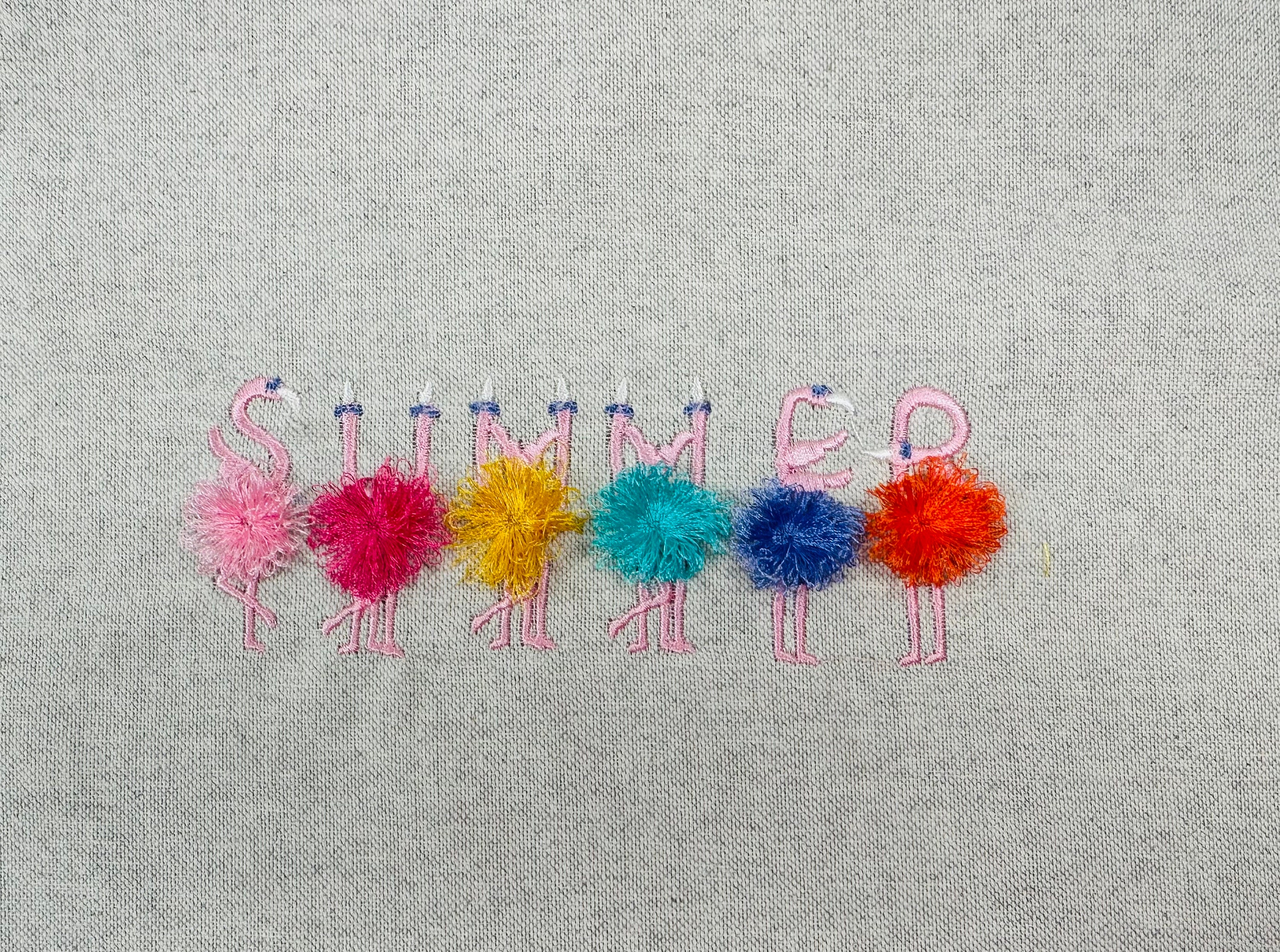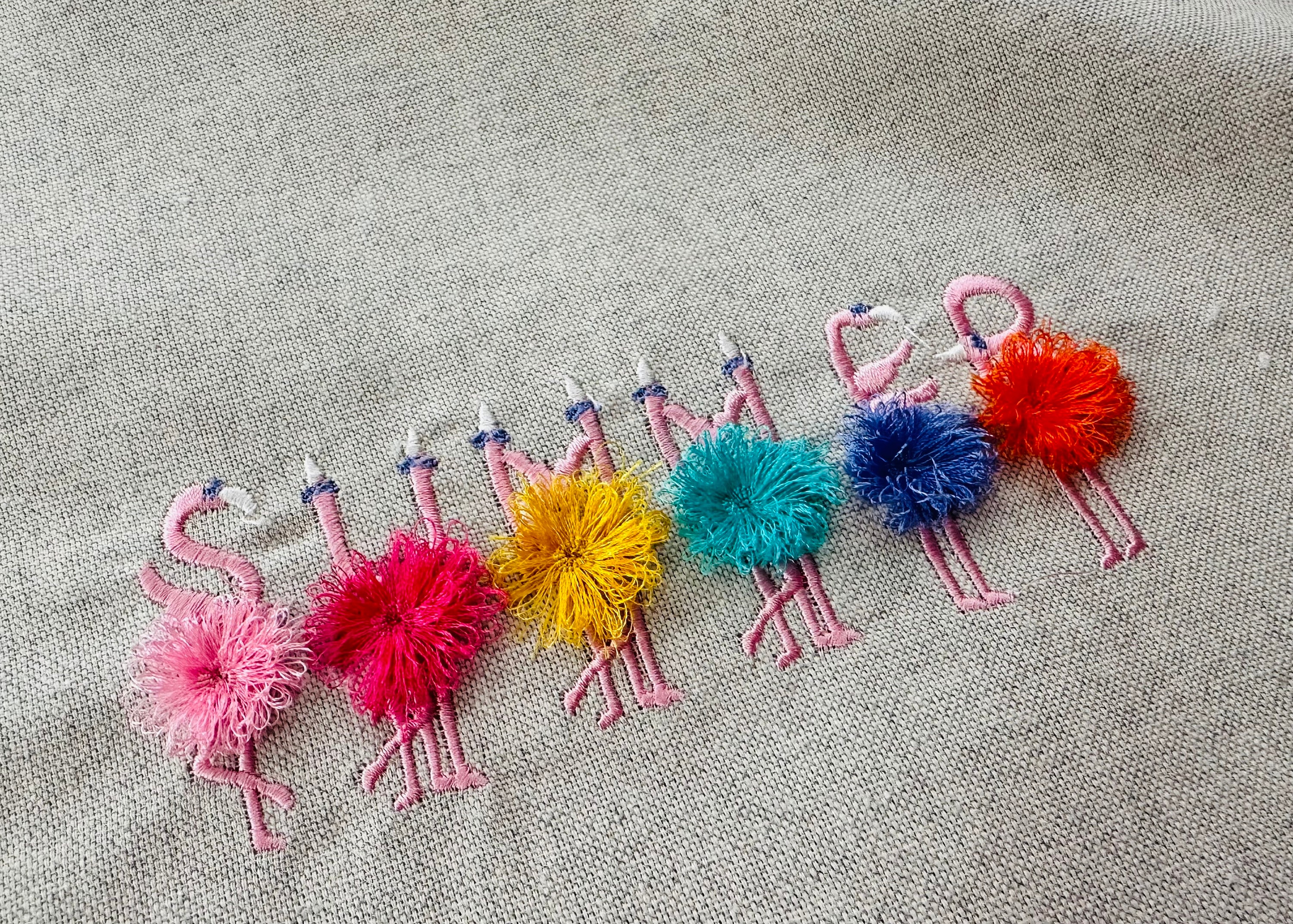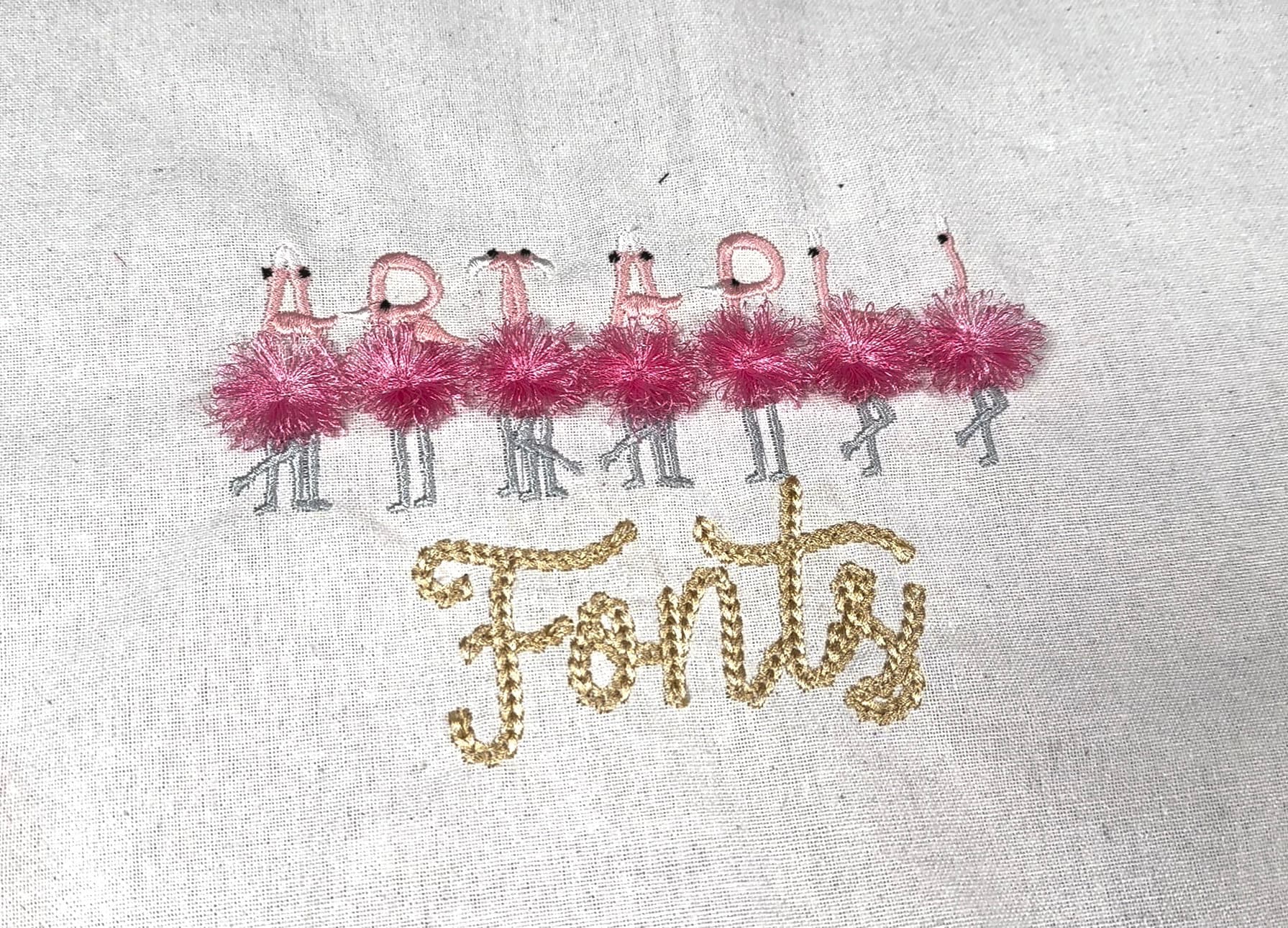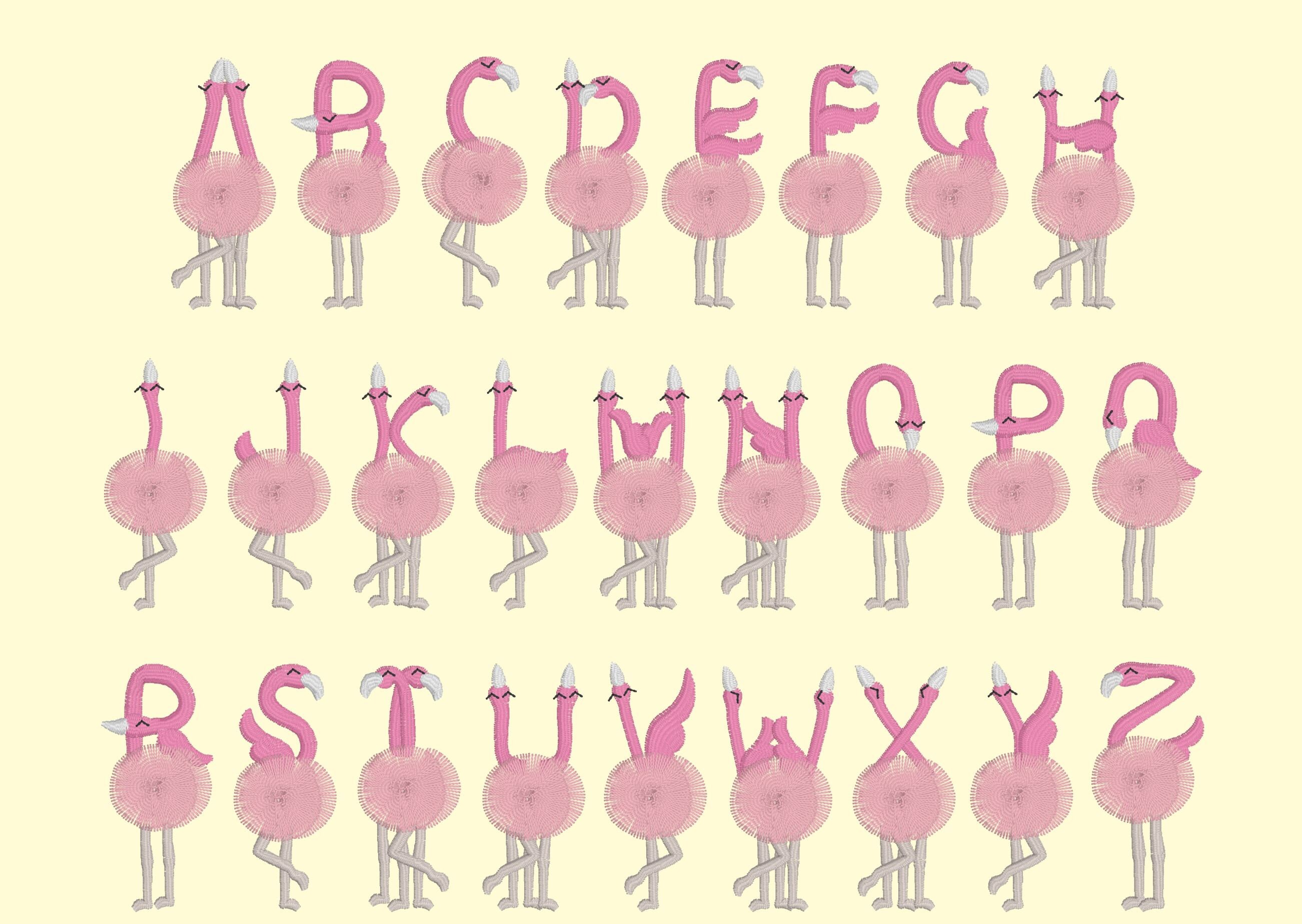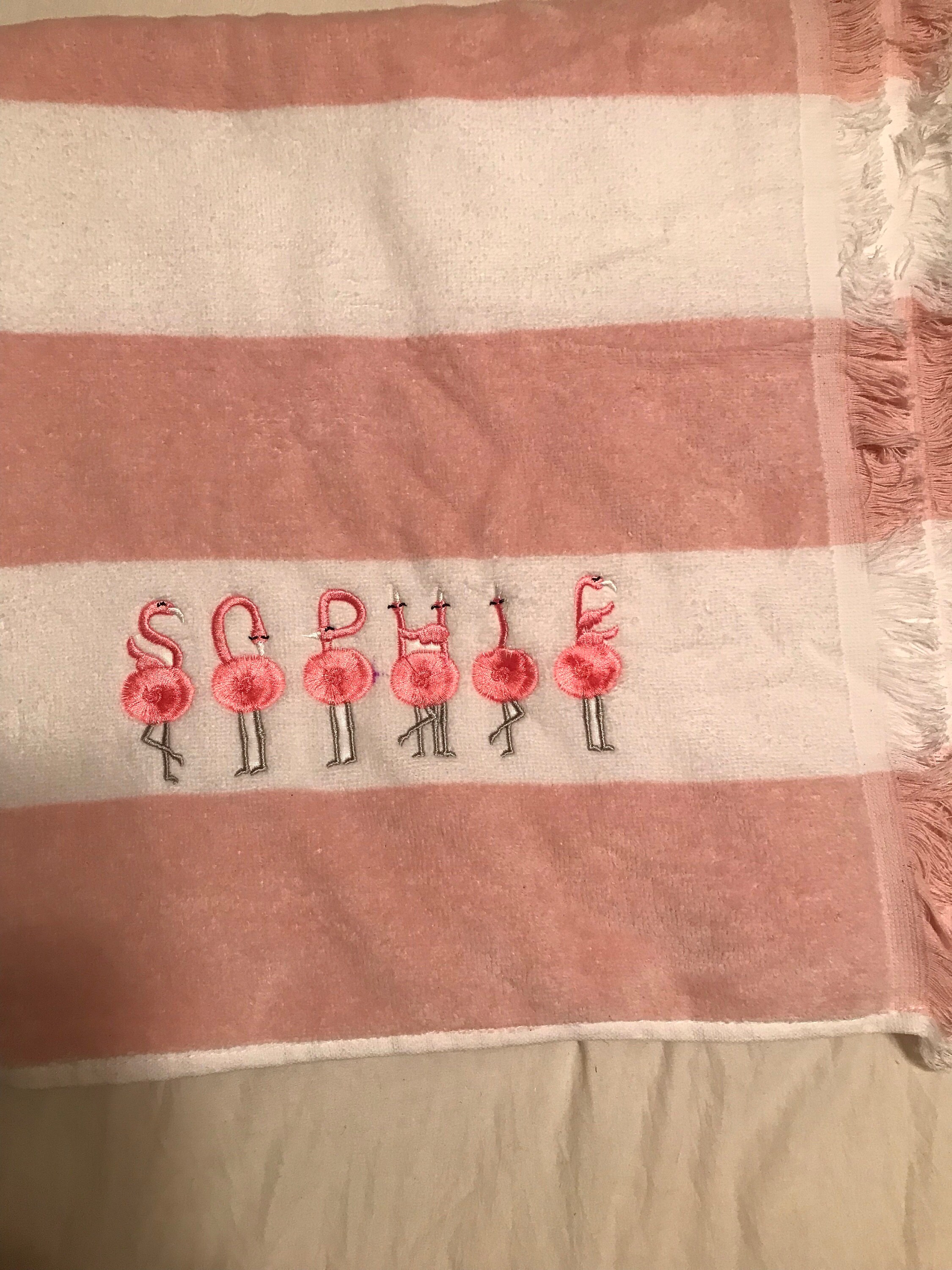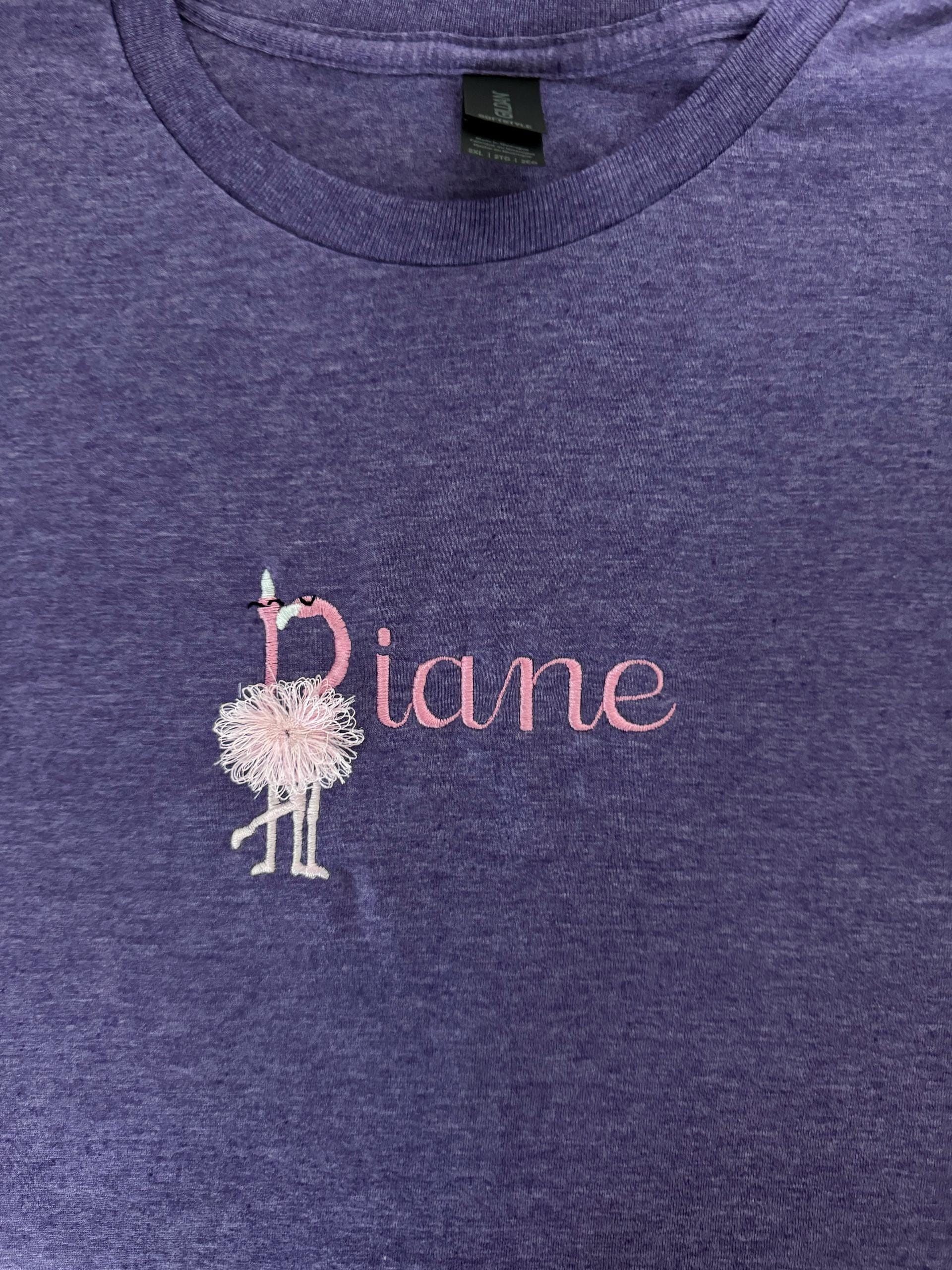
Small Font Entire alphabet Fringed fluffy chenille flamingos machine embroidery designs tiny wee flamingo fringe fur flamingo bird letters
The design has a special seam holding fringe in place.
It is easy. Embroider the design as usual. Large satin stitches will be loose. Once you complete stitching the design, turn over your hoop to see a reverse side, and cut the bobbin thread, along the large satin stitches. Turn the hoop back over and fluff up the "fringe" around.